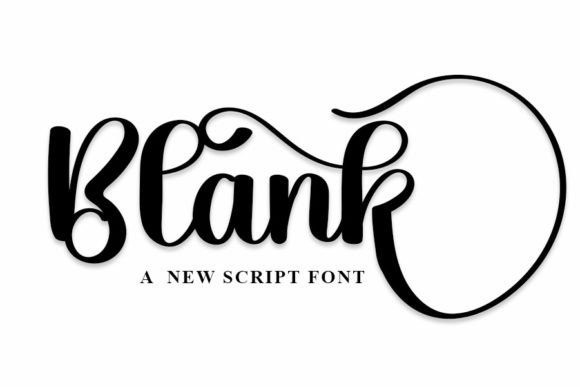
Blank Script Font
Blank Script Font is a beautiful and refined handwritten font. Classy and modern, it is perfect for logos, branding, invitations, stationery, wedding designs, social media posts, and much more!